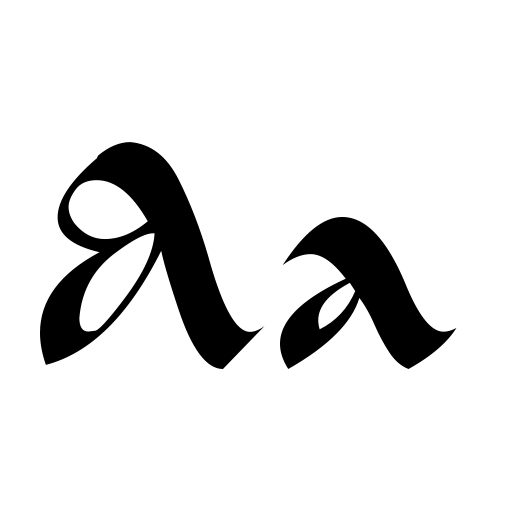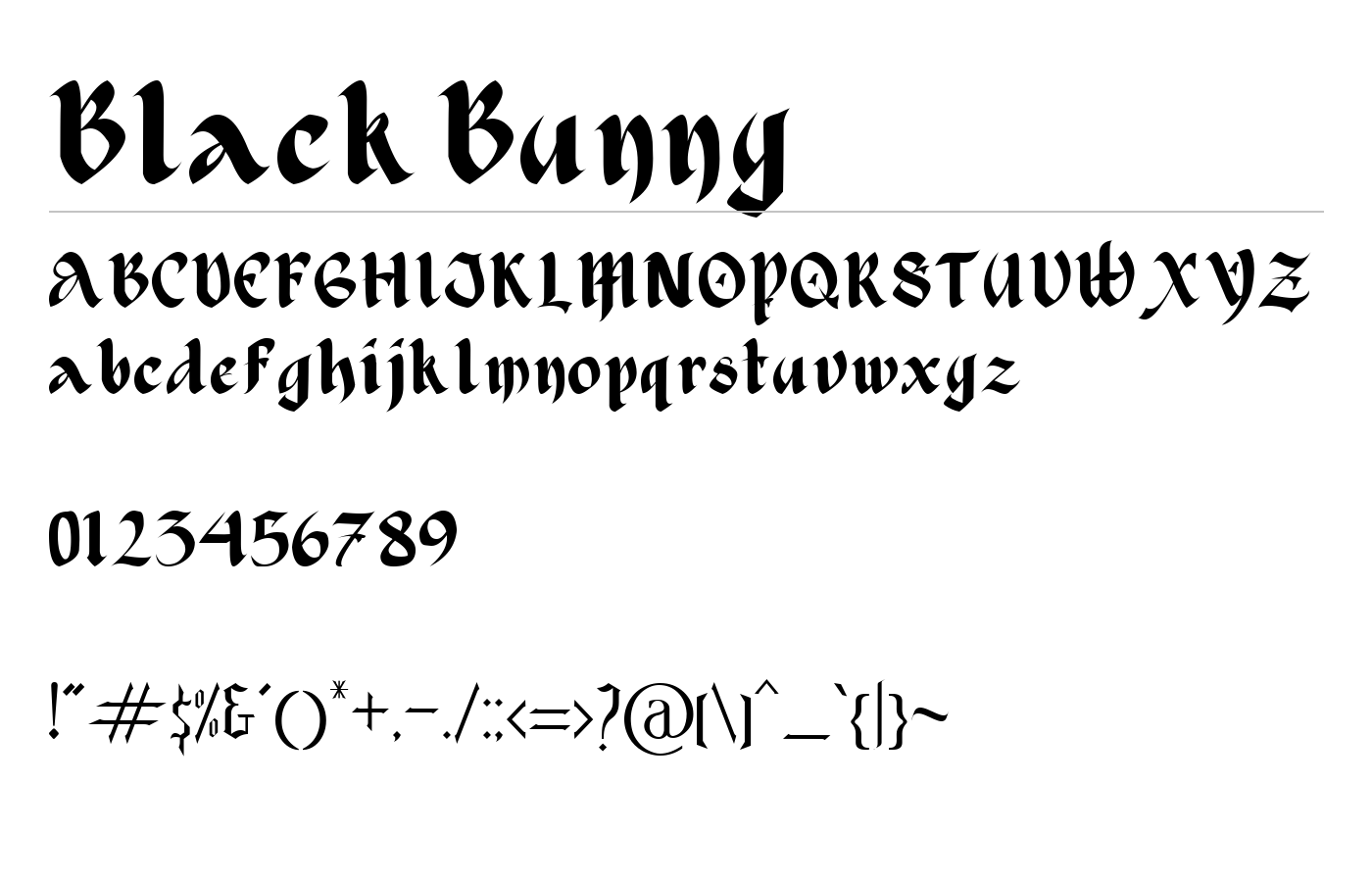
Black Bunny Font is a bold and dramatic blackletter style typeface with sharp, angular strokes and heavy contrast, evoking a strong gothic and medieval vibe. Its intricate letterforms, including stylized capitals and unique numbers, make it perfect for creating impactful headlines, logos, or branding that requires an old-world, mysterious, or edgy atmosphere. This font works best in display uses where its ornate details can shine without compromising readability.
Black Bunny Font
About Black Bunny Font
| Font family | Black Bunny Font |